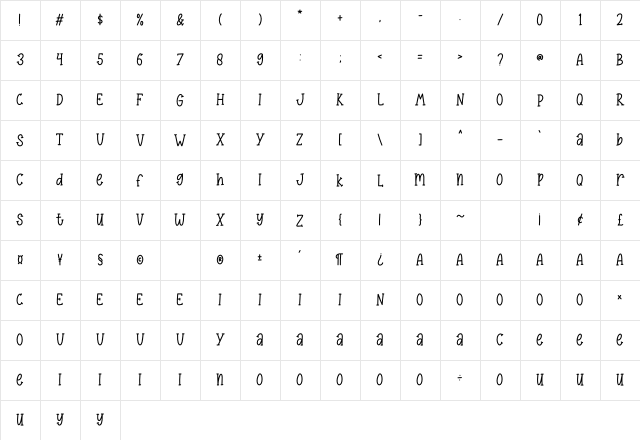
Welcome Autumn Regular Free Font
Welcome Autumn Regular
Foundry: Graphix Line Studio
Designer: Graphix Line Studio
Design Context for Welcome Autumn
Welcome Autumn is a composed and adaptable typeface that performs quietly and consistently across a wide range of design contexts.